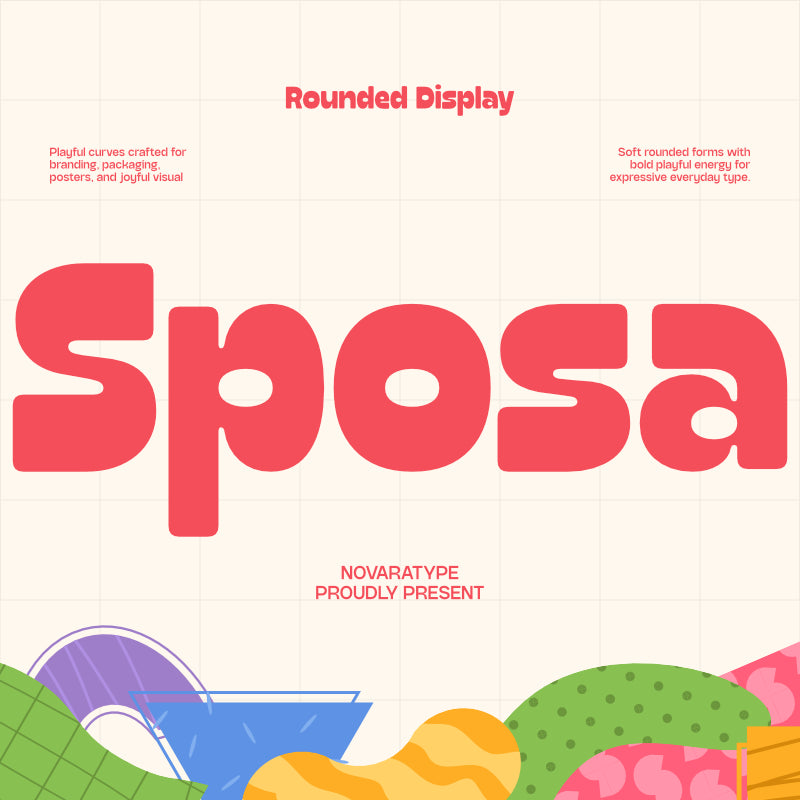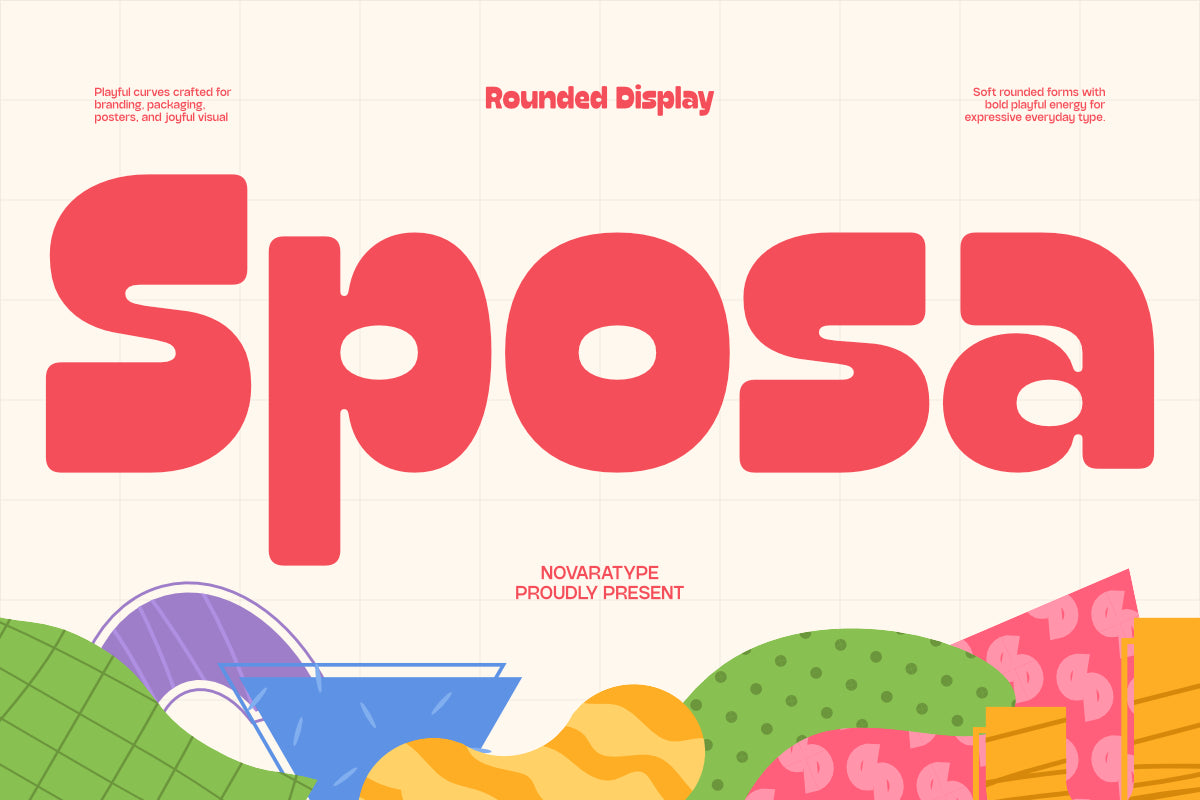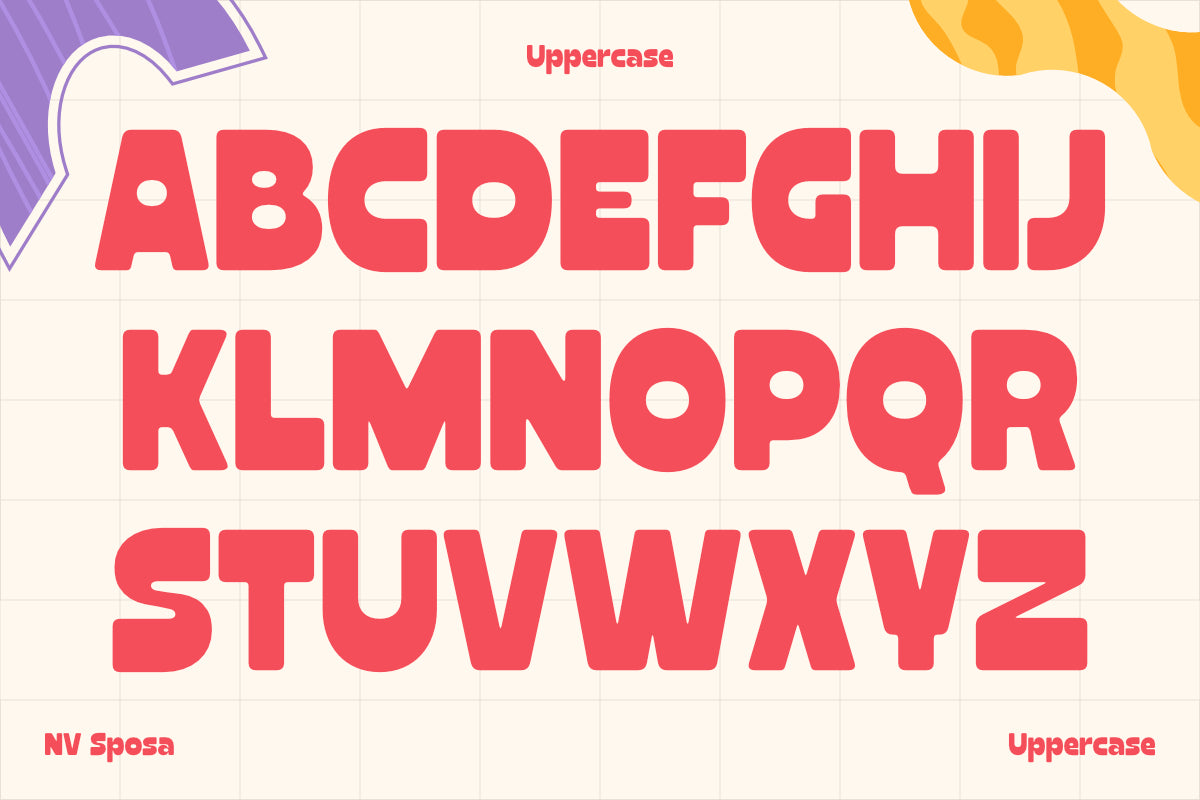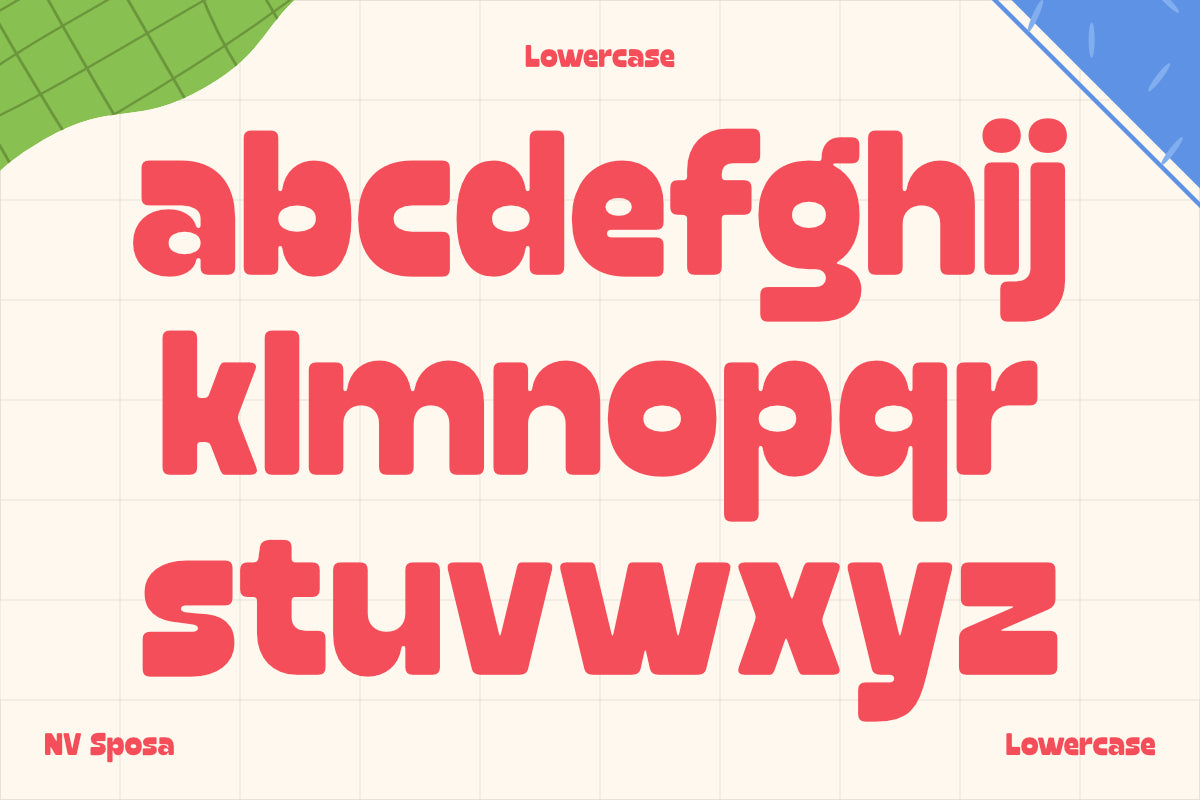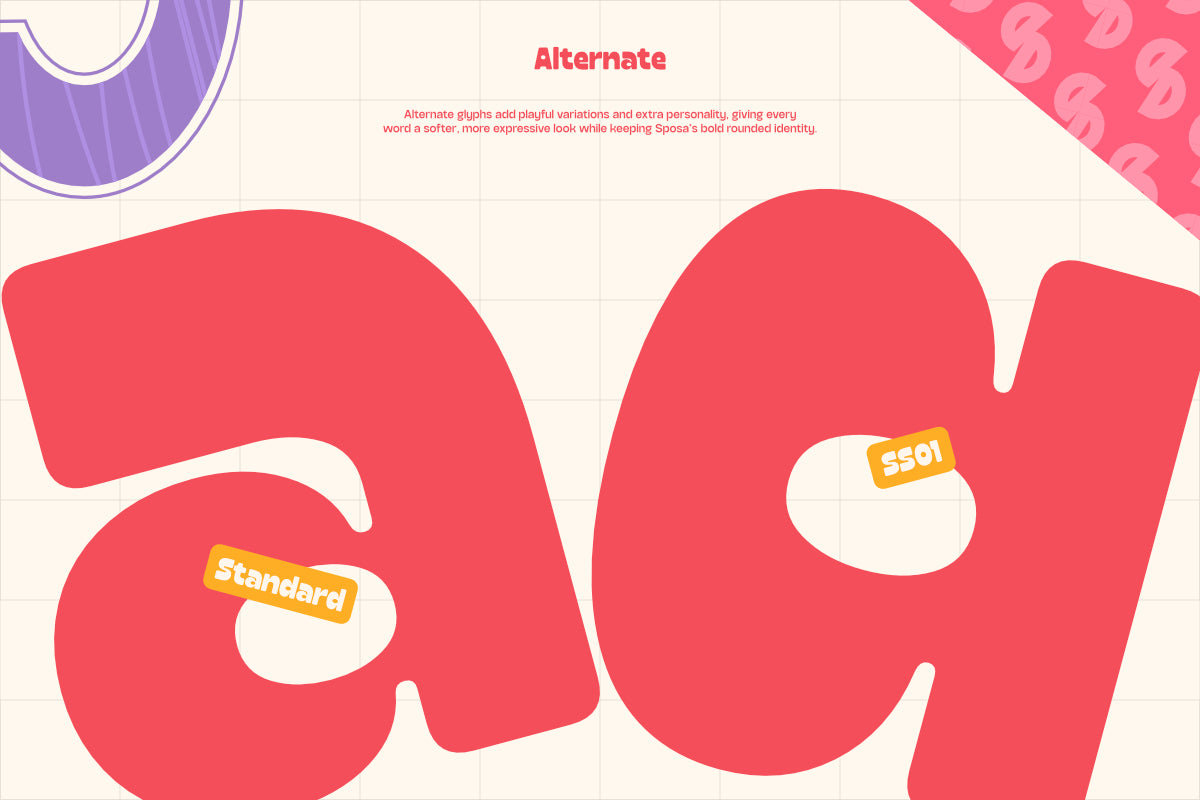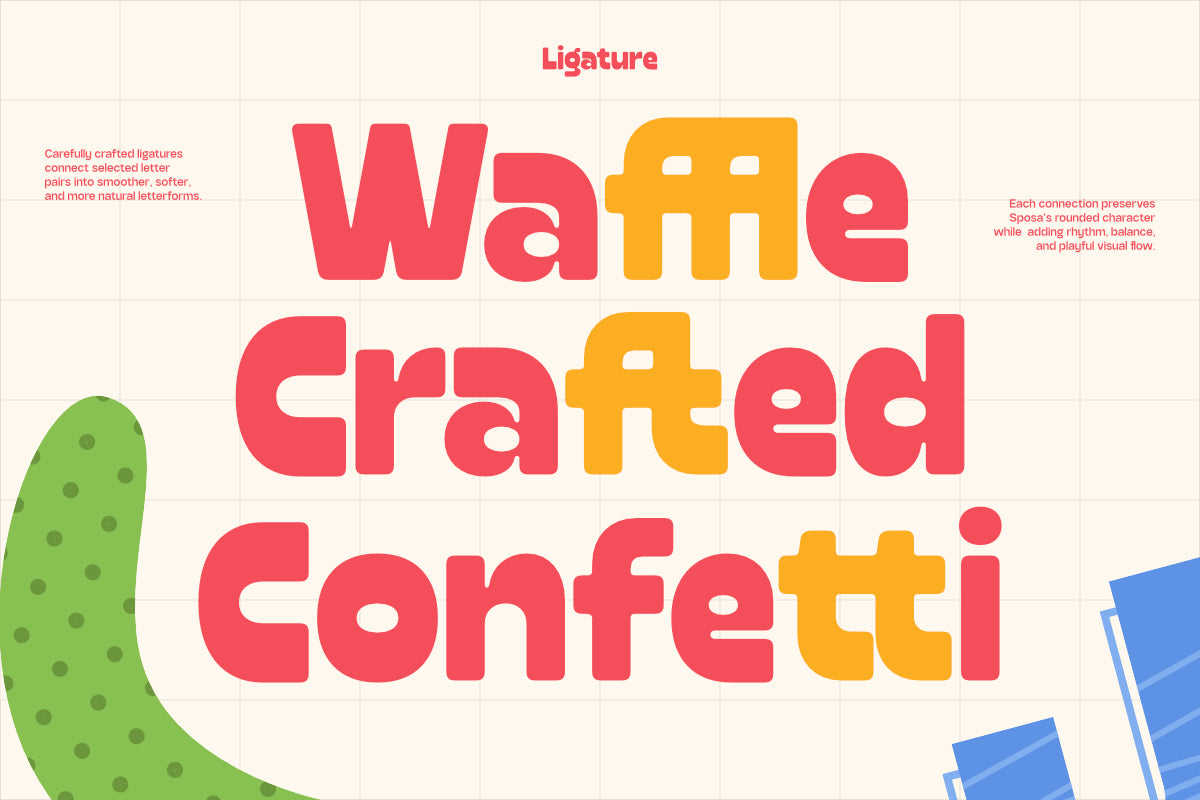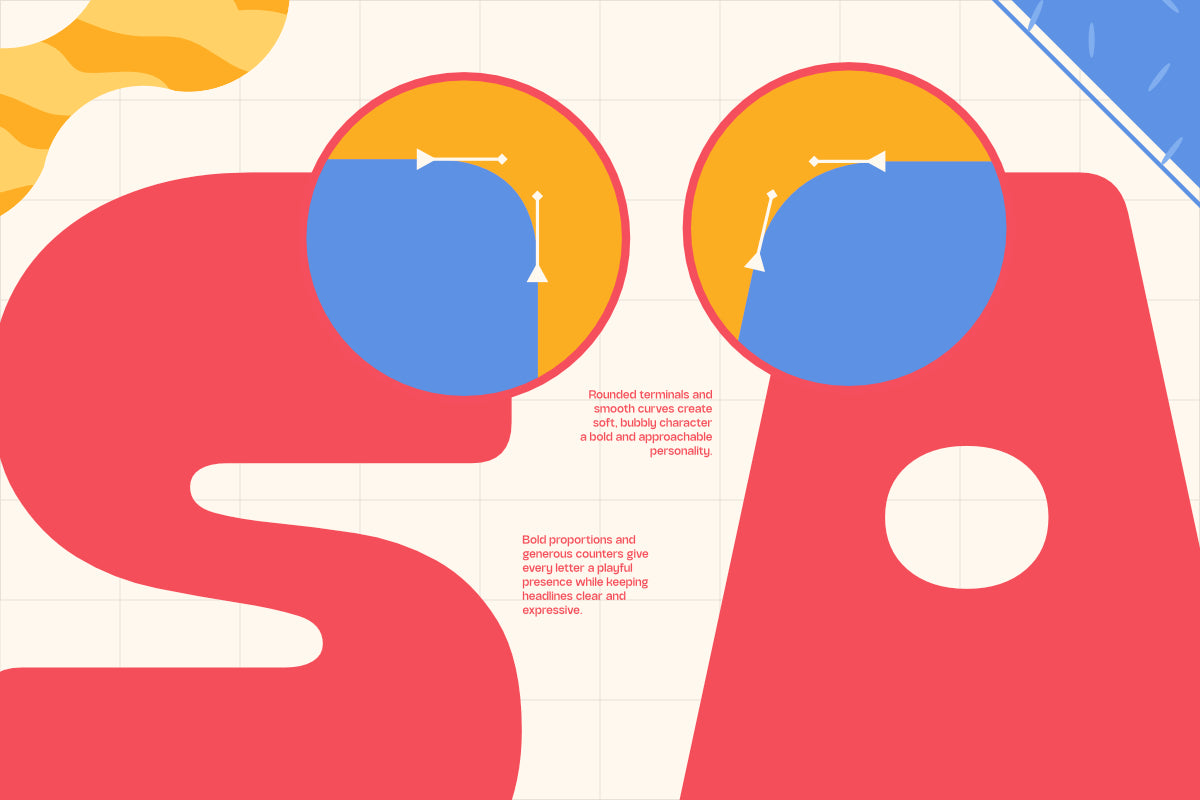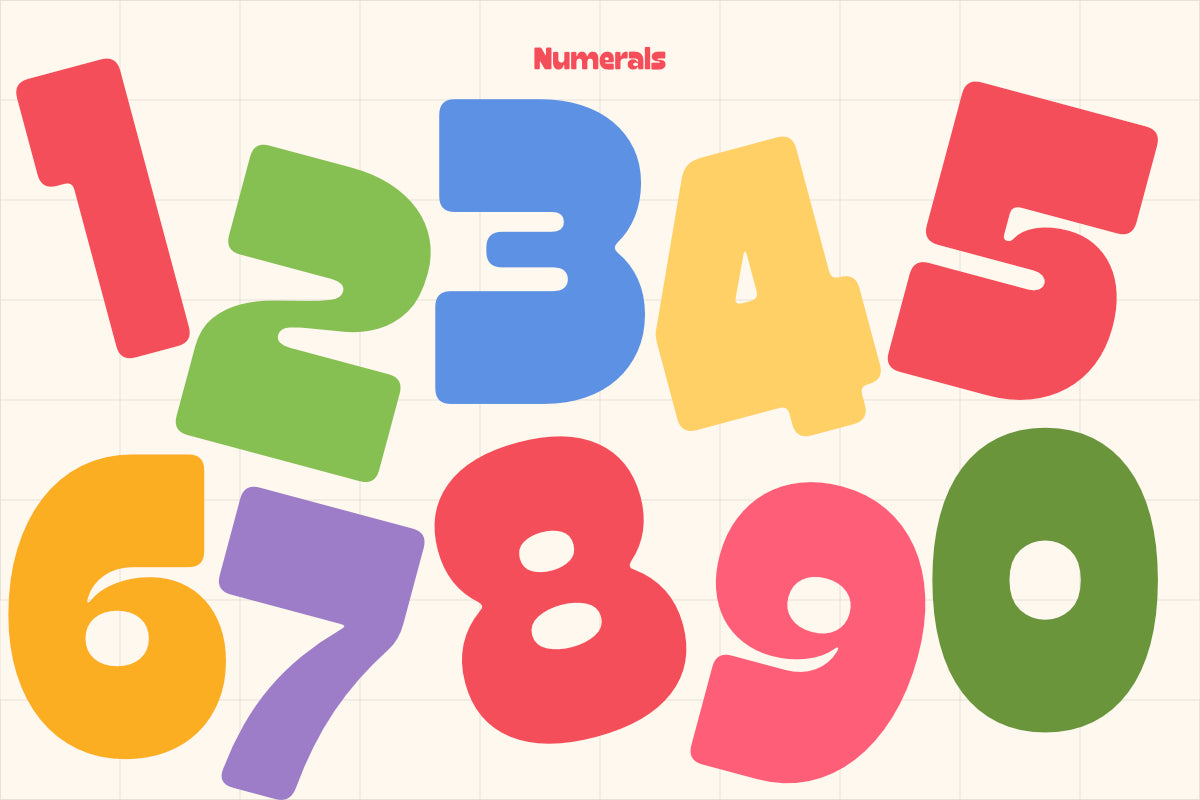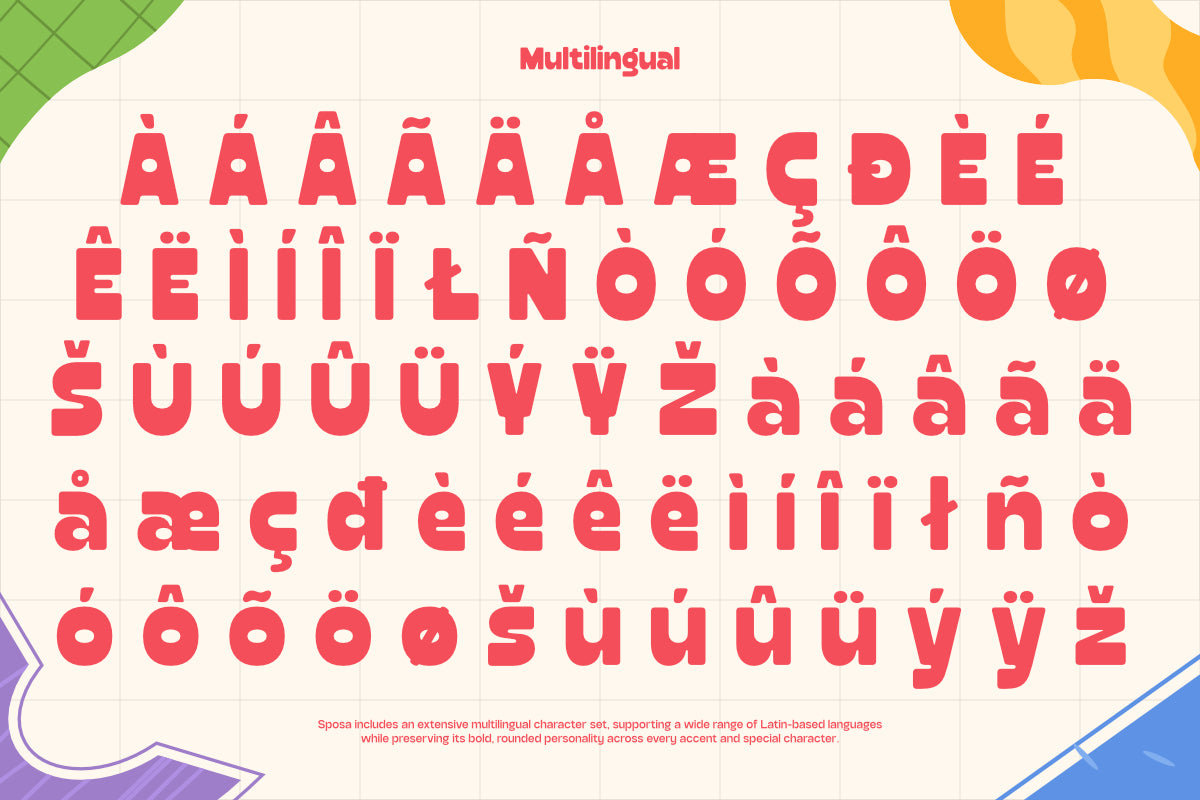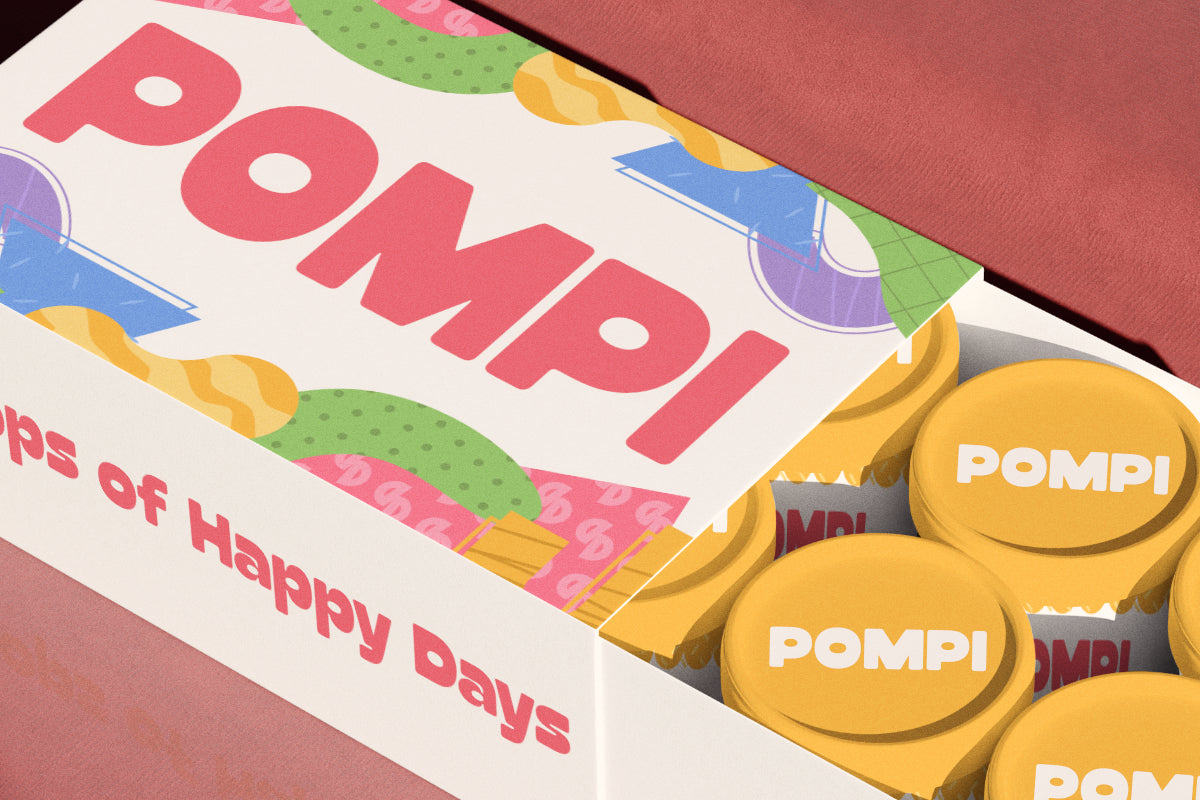
NV SPOSA – Rounded Display Font
NovaraType
NV SPOSA Rounded Display Font is a cheerful and modern display typeface designed to bring warmth, personality, and bold visual appeal to creative projects. Developed by NovaraType, NV SPOSA features soft rounded corners, chunky proportions, and friendly letterforms—making it a perfect choice for branding, packaging, food & beverage identities, children's products, lifestyle brands, posters, merchandise, and engaging social media graphics.
NV SPOSA is thoughtfully crafted to create a playful yet polished typographic personality while maintaining excellent readability at display sizes. Its rounded construction adds an approachable and energetic feel, allowing every headline and logo to communicate confidence with a friendly touch. Every glyph is carefully balanced to deliver smooth curves, clean geometry, and a lively visual rhythm.
Whether you're designing colorful packaging, café branding, toy and kids brands, beauty products, event promotions, product labels, or digital content, NV SPOSA offers the versatility and charm needed to make every composition memorable. Its contemporary rounded aesthetic makes it an ideal display font for designers looking to create fun, approachable, and impactful visual communication.
NV SPOSA Rounded Display Font Includes:
Rounded Display Style
Alternates & Ligatures
Numerals & Punctuation
Accented Characters
NV SPOSA is a rounded display typeface by NovaraType featuring soft corners, chunky proportions, and rounded letterforms. It includes alternates, ligatures, numerals, punctuation, accented characters, multilingual support, and Unicode PUA encoding.